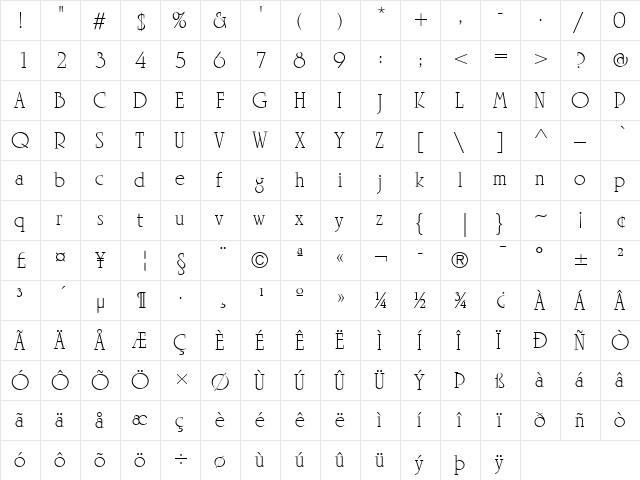
LTRowena Light Regular
Design Context for LTRowena Light Typeface
LTRowena Light offers clean, dependable letterforms without strong stylistic allegiance, making it a practical choice for designers who need flexibility. The delicate stroke weight brings airiness and refinement to layouts.